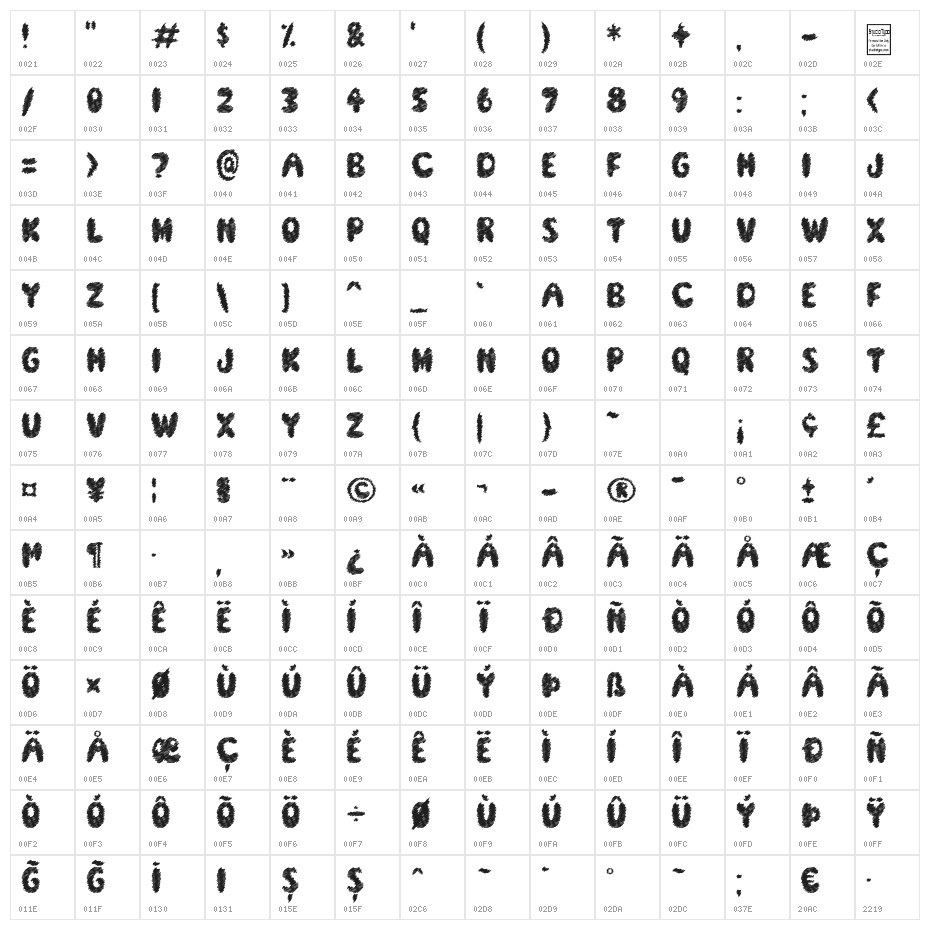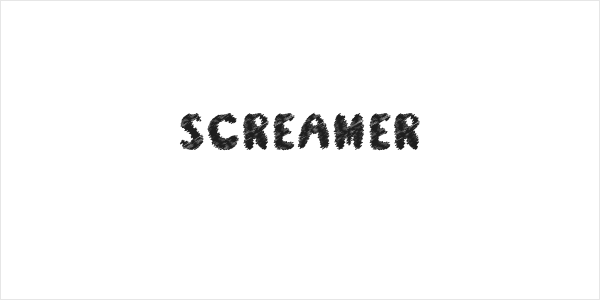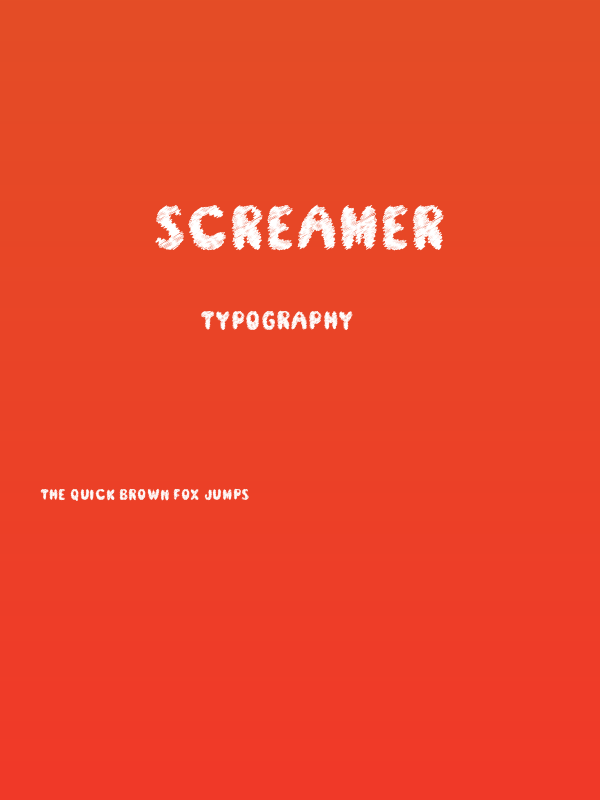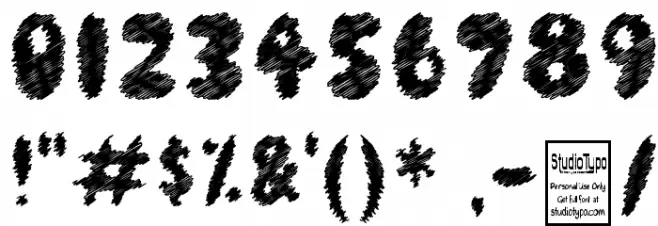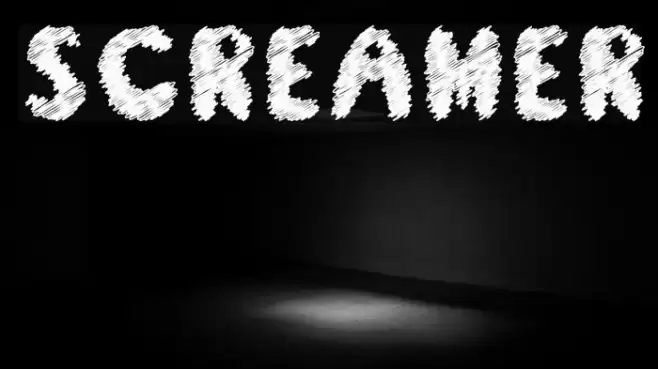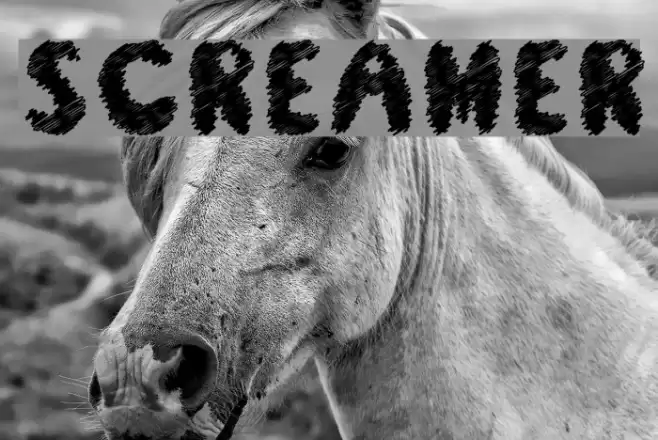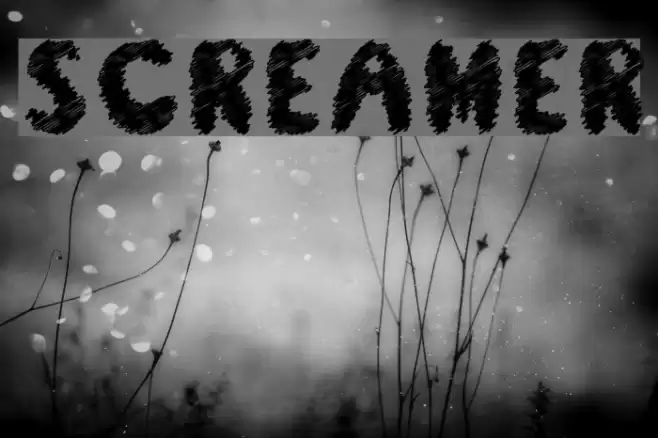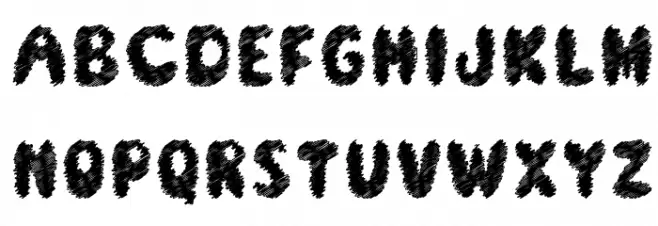
Screamer Font
Screamer Description
This font features a bold, textured style that mimics a hand-drawn or sketched appearance. Each character is filled with dense, irregular strokes that give it a dynamic and energetic feel. The letters are uppercase and lowercase, with numbers and a variety of special characters included. The overall look is rough yet artistic, making it stand out in any design. The texture adds a sense of movement and vibrancy, perfect for projects that require a bold statement. The font's unique style is both eye-catching and versatile, suitable for a range of creative applications.